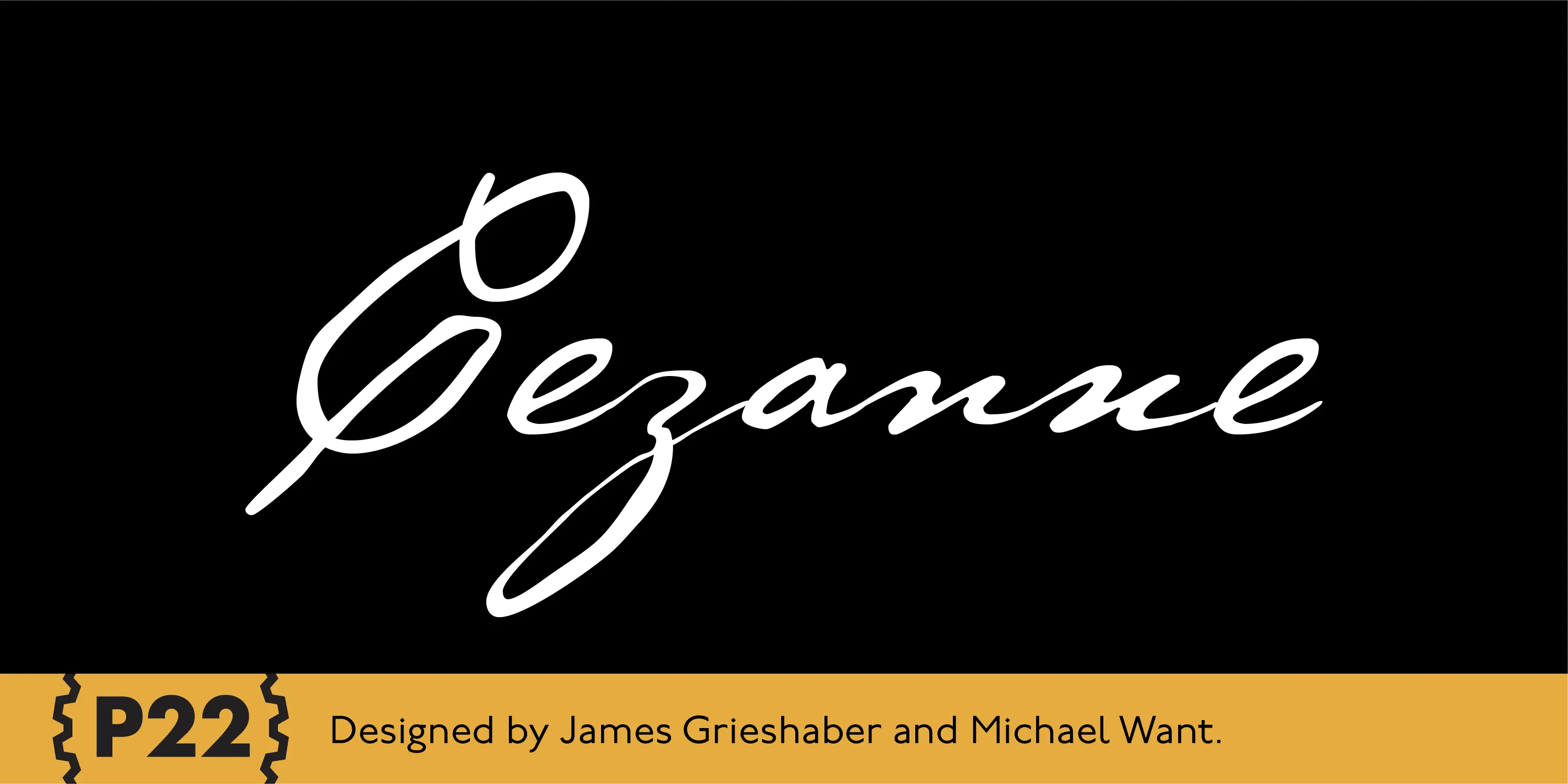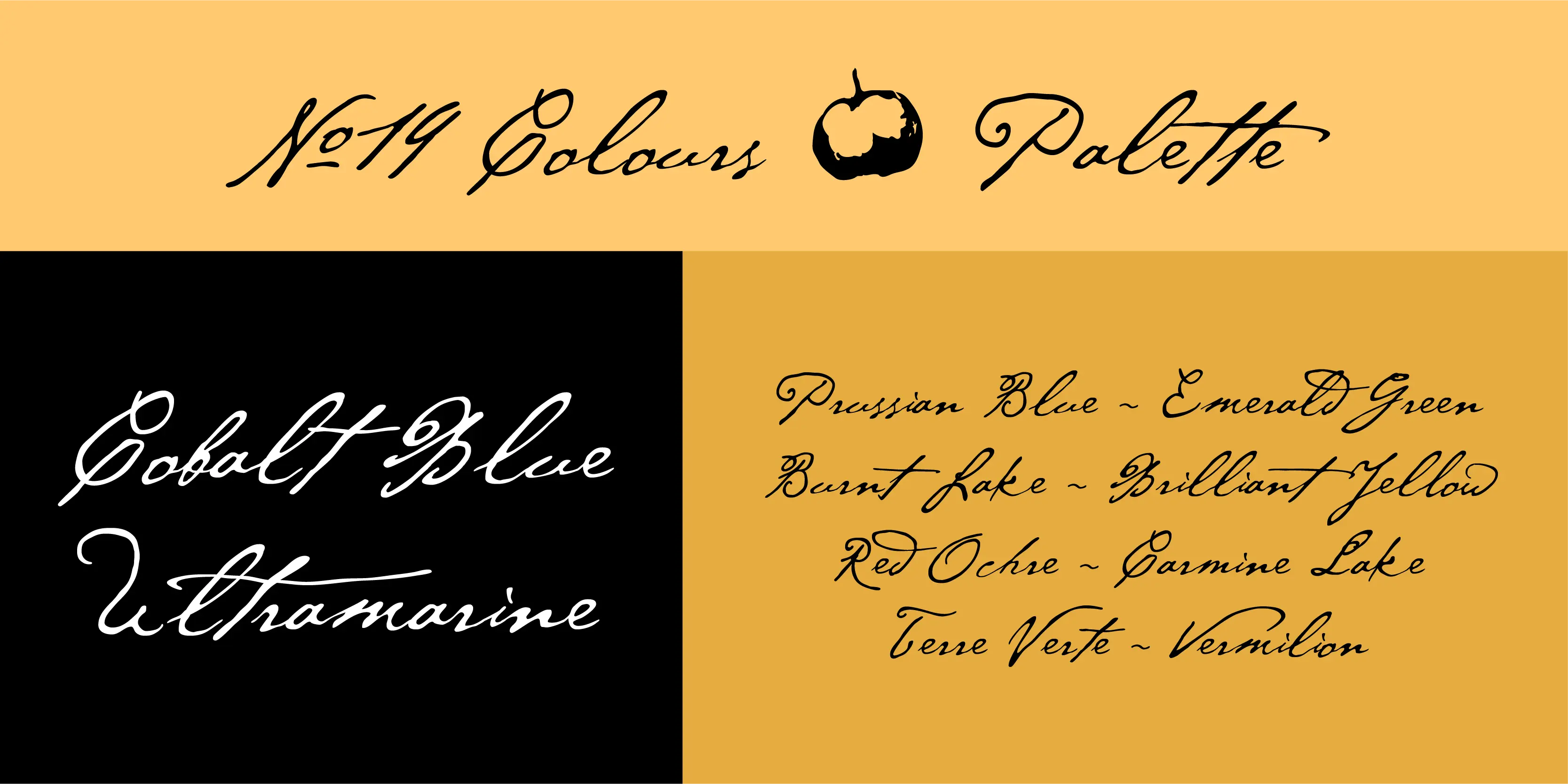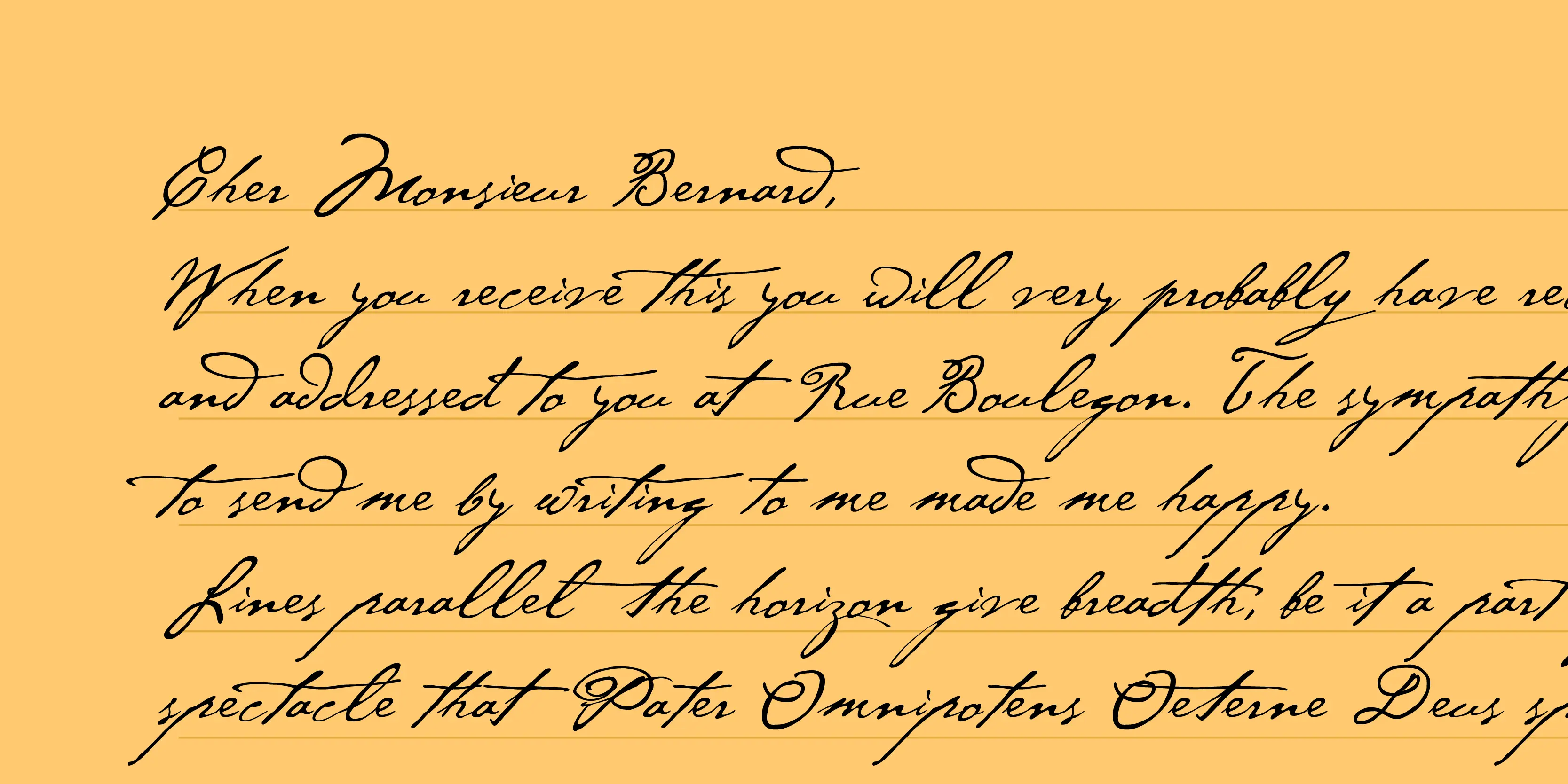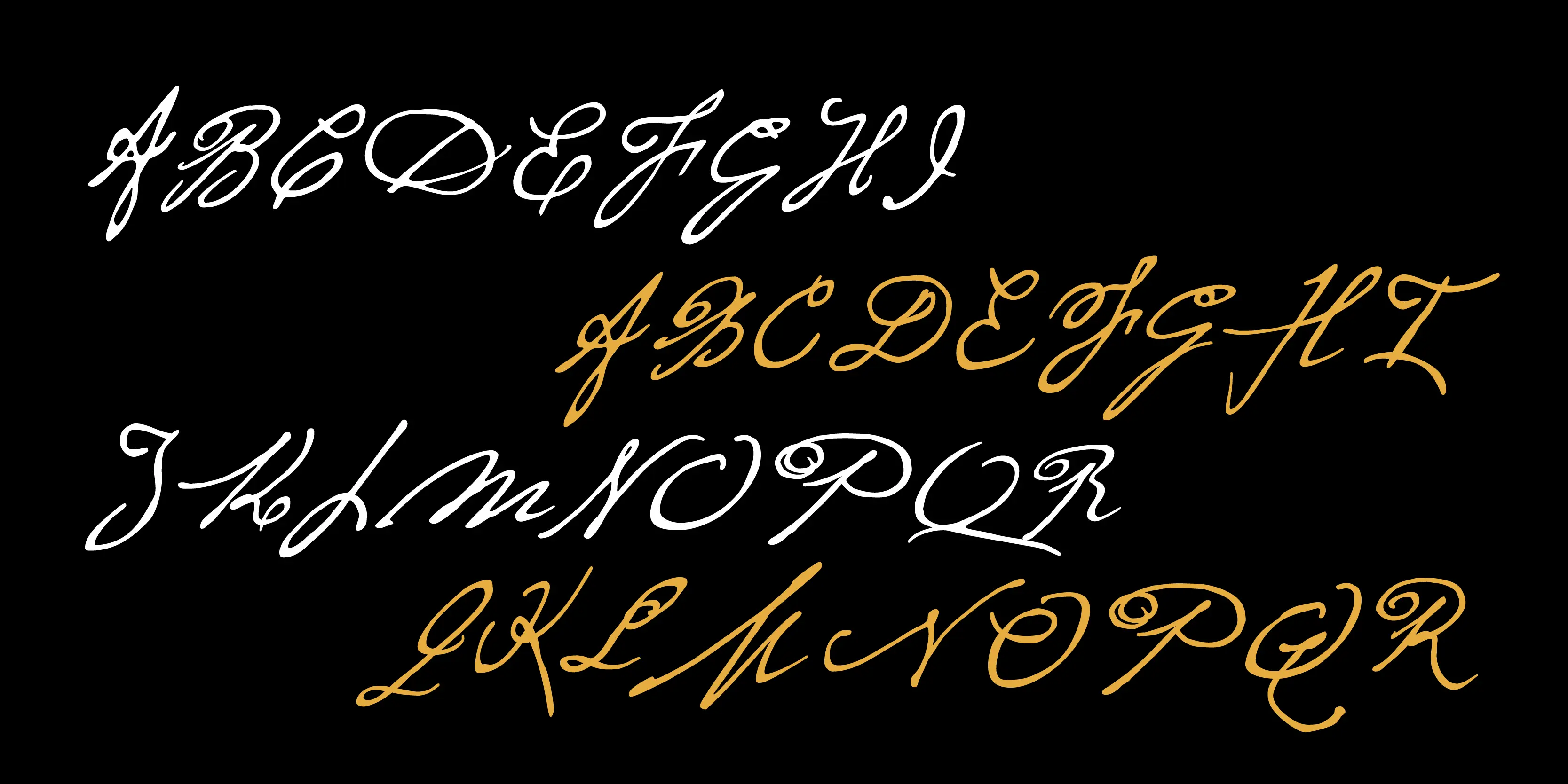
Cezanne Font Family
• Cezanne Regular
• Cezanne Sketches
Cezanne
This font set, created for the Philadelphia Museum of Art, celebrates the work of influential French artist Paul Cézanne. P22’s Cezanne font allows you to beautify your documents with a faithful rendition of the artist’s handwriting, while Cezanne Sketches recreates a variety of imagery from the artist’s work. Cezanne Pro includes full western and central European character sets and Cyrillic for typesetting in dozens of languages. It features several types of numerals, ligatures, snap-on swashes, and word glyphs. The Pro version includes over 1,200 glyphs and “smart features” that will automatically substitute letter combination’s to create an even more natural handwriting effect than was possible with Cezanne Regular.
• Contextual Swashes
• Fractions
• Lining Numerals
• Old Style Numerals
• Ordinal Numerals
• Ornaments
• Slashed Zero
• Superscript
• Tabular Numerals
Contextual Alternates
Contextual Swashes
Ornaments
Fractions
Lining Figures
Oldstyle Figures
Tabular Figures
Slashed Zero
Ordinals
Scientific Inferiors
Superscript
Numerators
Denominators